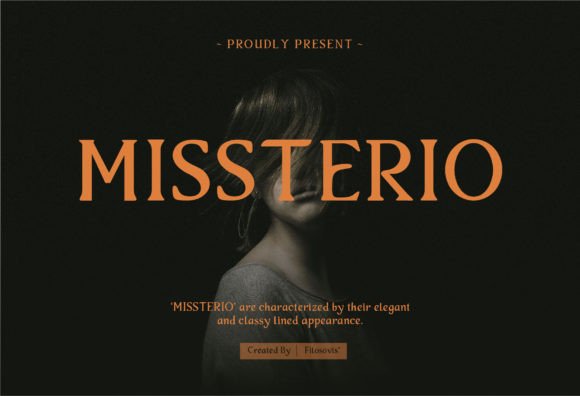
Introducing Missterio Font: The Epitome of Sophistication and Timeless Appeal
Welcome to the realm of Missterio Font, an exquisite collection of serif fonts that exudes elegance and class like no other. With its refined and meticulously crafted letterforms, Missterio Font is the perfect choice for designers seeking to create captivating designs that resonate with sophistication and timelessness.
Unleash your creativity and embark on a typographic journey with Missterio Font. Its unique lined appearance adds a touch of charm and character to any project, whether it's a logo, branding, invitation, stationery, wedding design, or captivating social media posts. Missterio Font brings a touch of timeless grace to every design, ensuring your words leave a lasting impression.
Immerse yourself in the beauty of Missterio Font and let your imagination run wild. Its classic and elegant aesthetic is perfect for creating vintage-inspired designs that evoke a sense of nostalgia and longing. Transport your audience to a bygone era with Missterio Font, capturing the essence of a simpler time in your design.
But Missterio Font is not just about aesthetics; it's also incredibly versatile. Its clean and legible lines make it perfect for use in web design, ensuring your website not only looks stunning but also provides an exceptional user experience. With Missterio Font, you can create designs that speak to your audience on multiple levels, leaving a lasting impression that keeps them coming back for more.